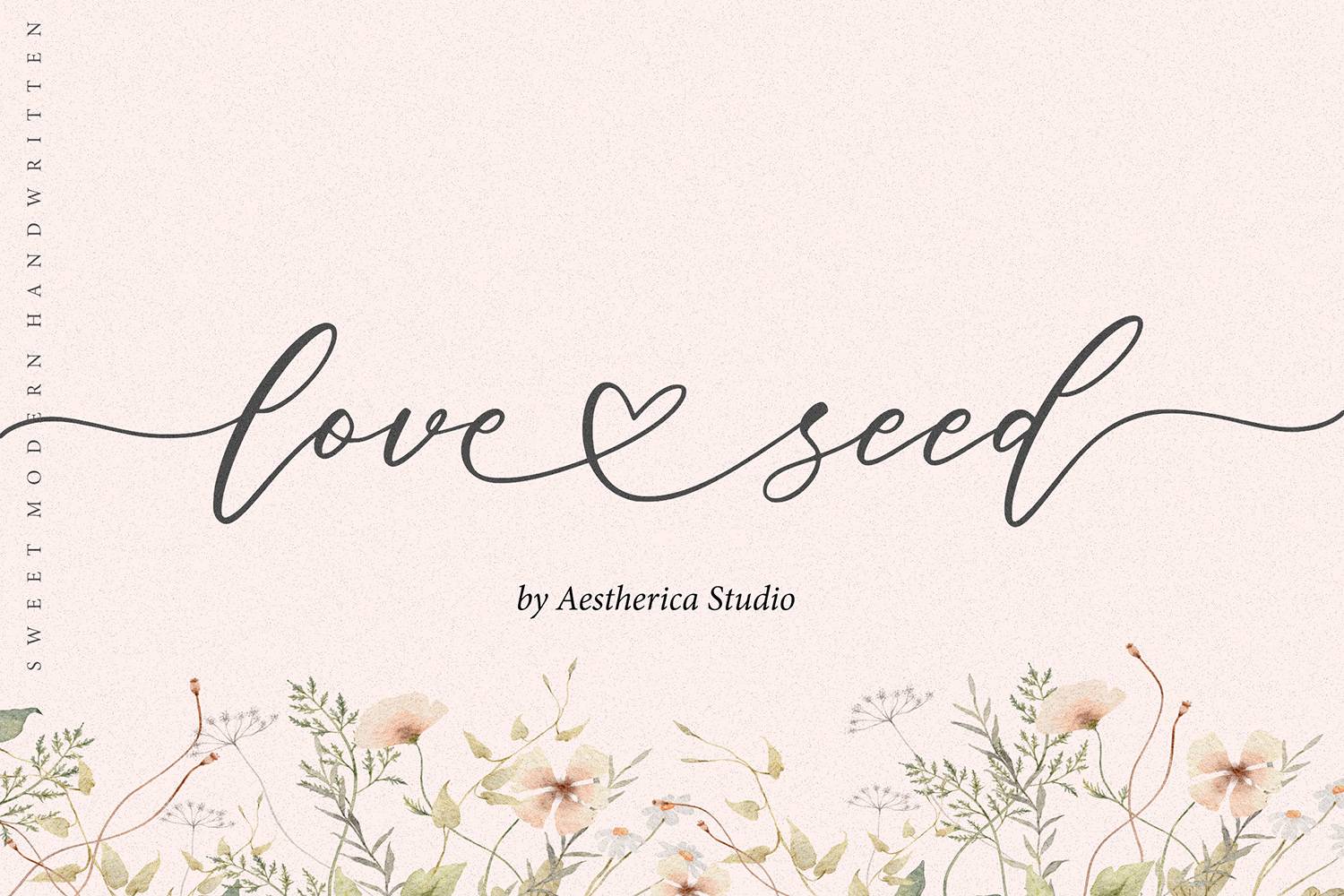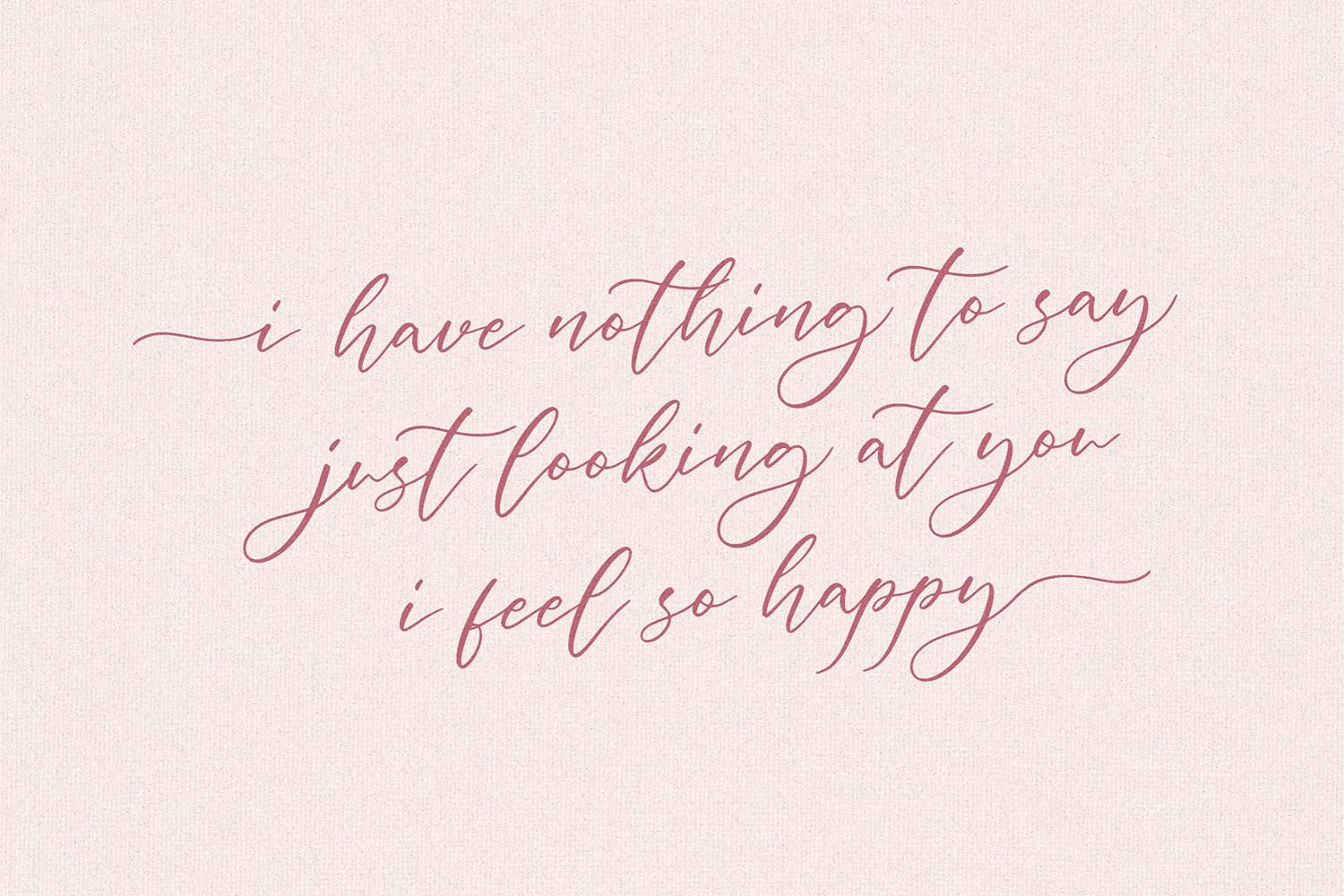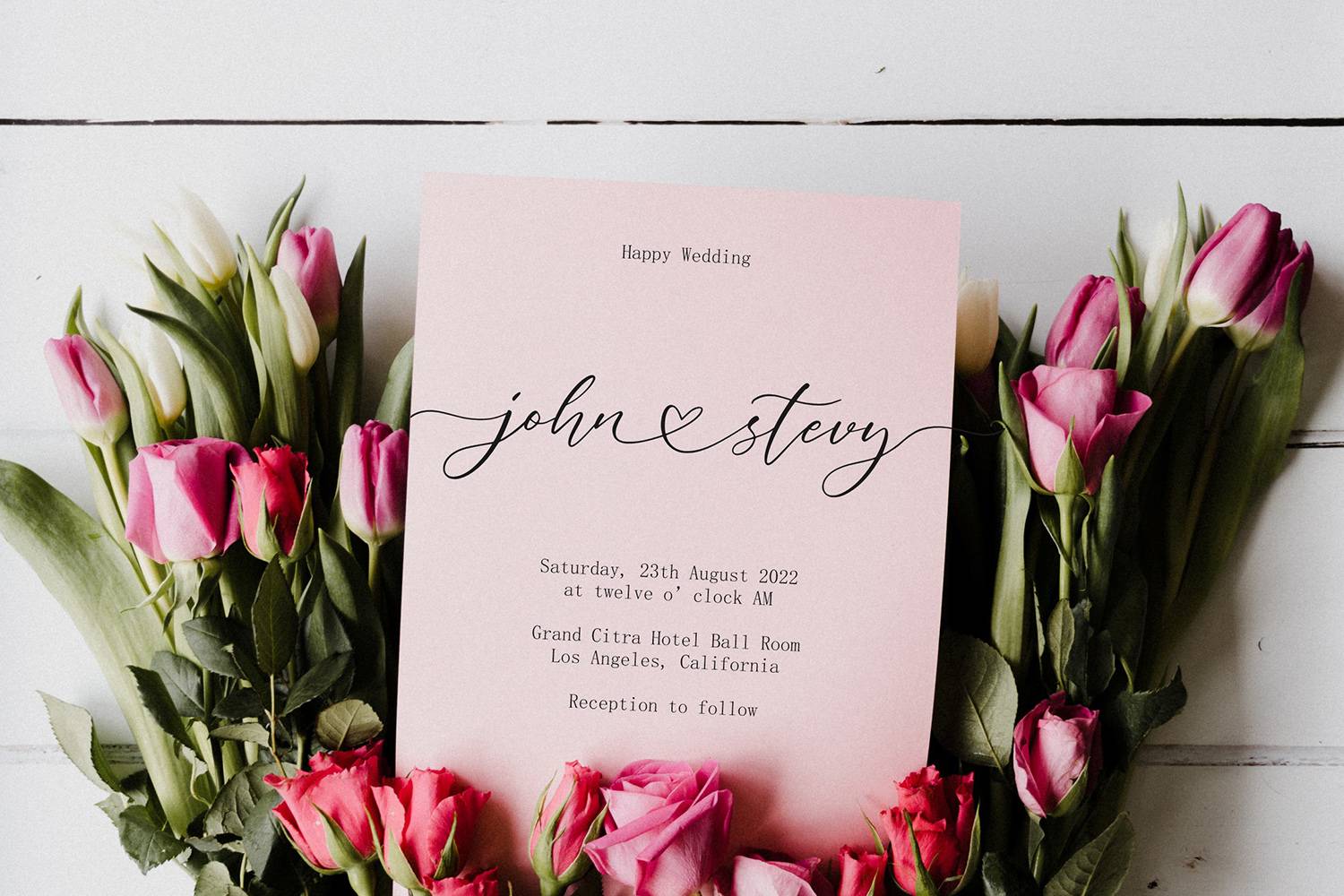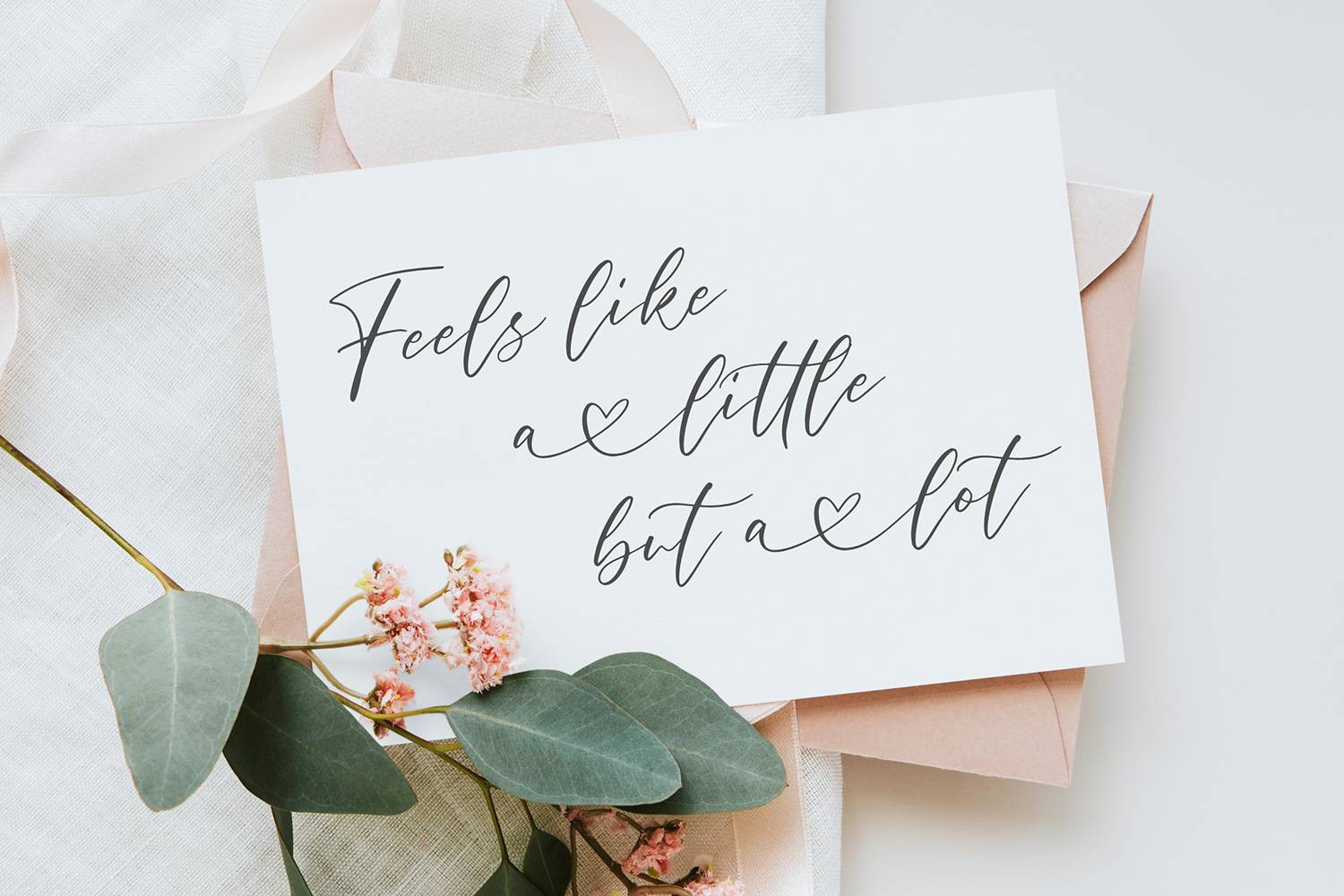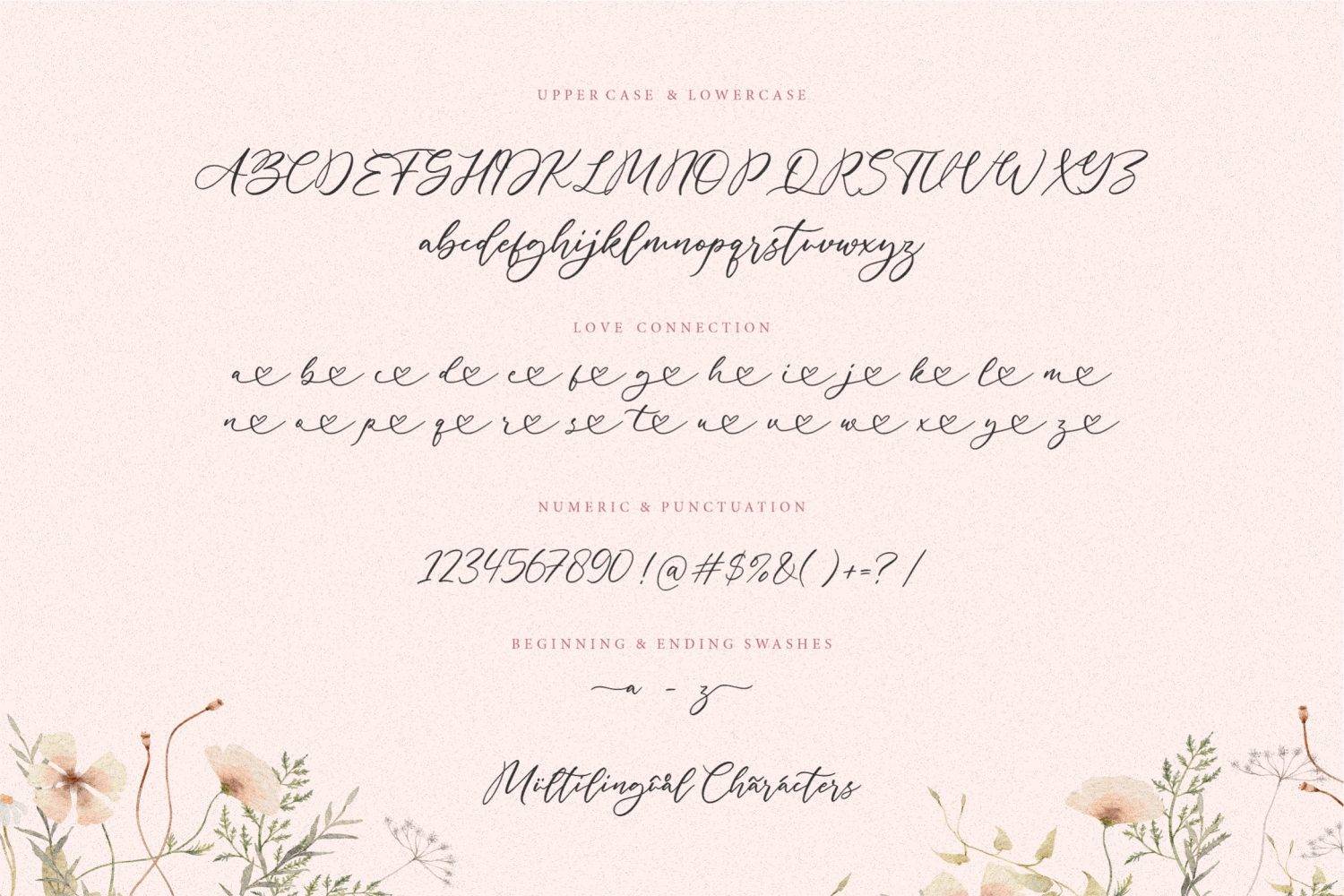
Love Seed is an elegant, delicate script font featuring thin, flowing strokes that mimic natural handwriting with a refined, feminine touch. Its graceful letterforms and subtle variations in line width make it perfect for romantic or sophisticated designs, such as wedding invitations, luxury branding, and elegant packaging. This font works beautifully in headlines or accents where a personal, stylish feel is desired.
Love Seed Font
About Love Seed Font
| Font family | Love Seed Font |